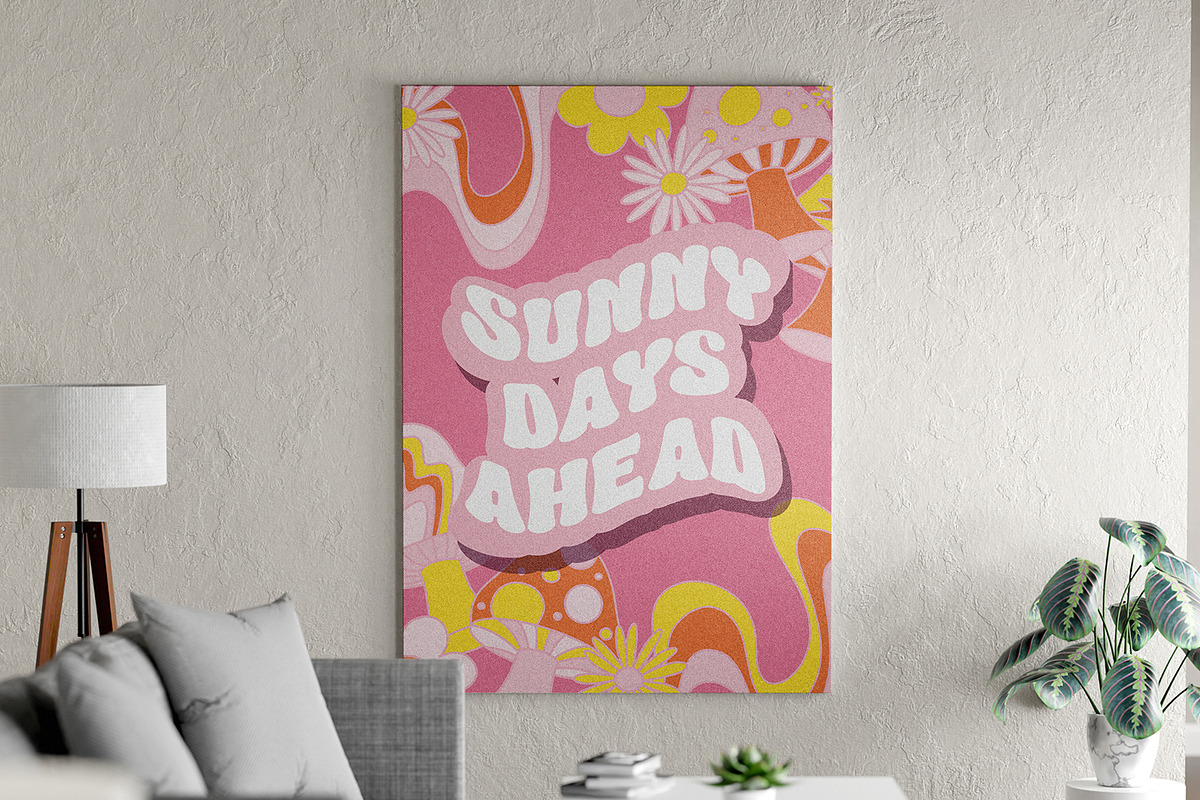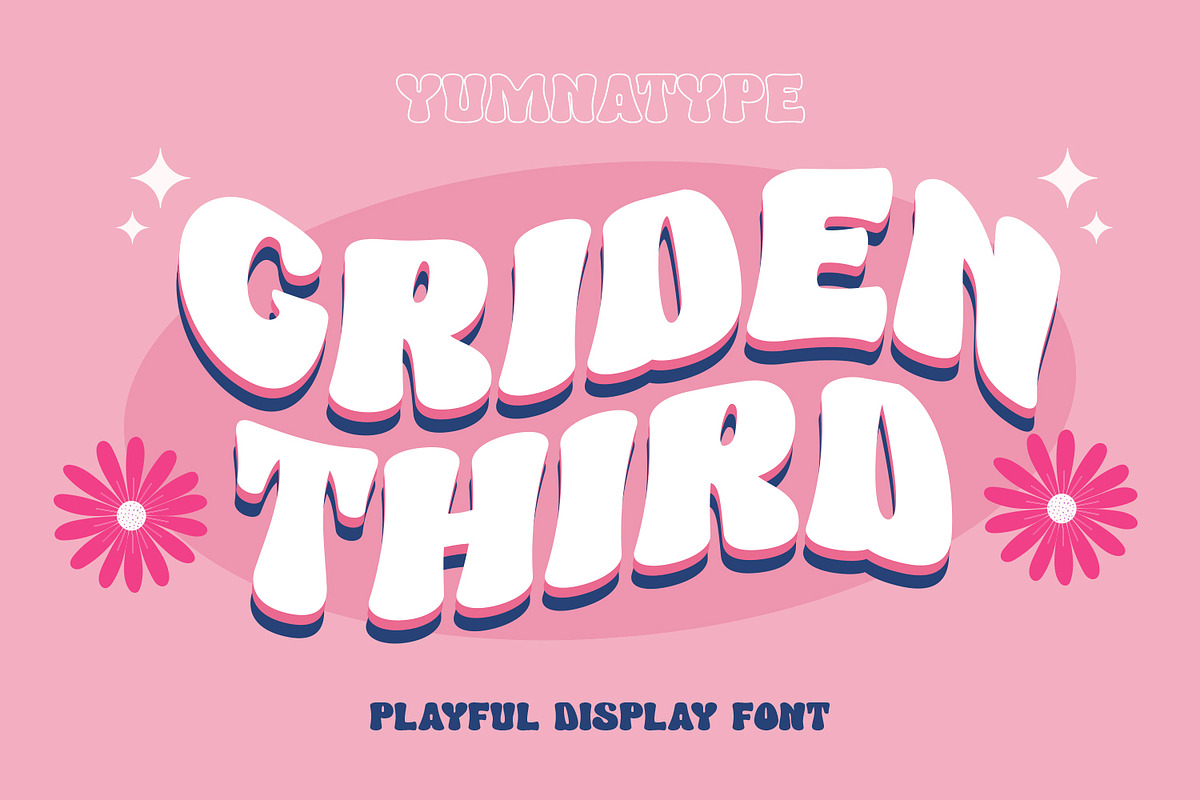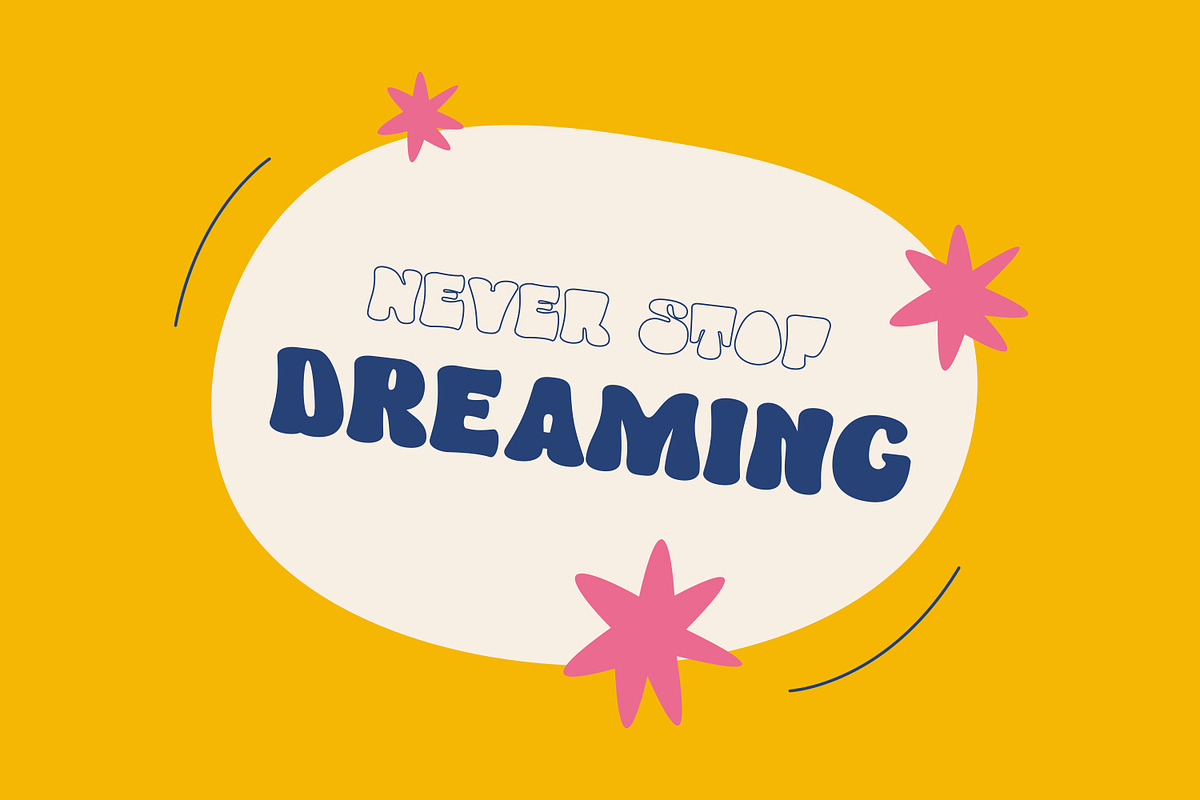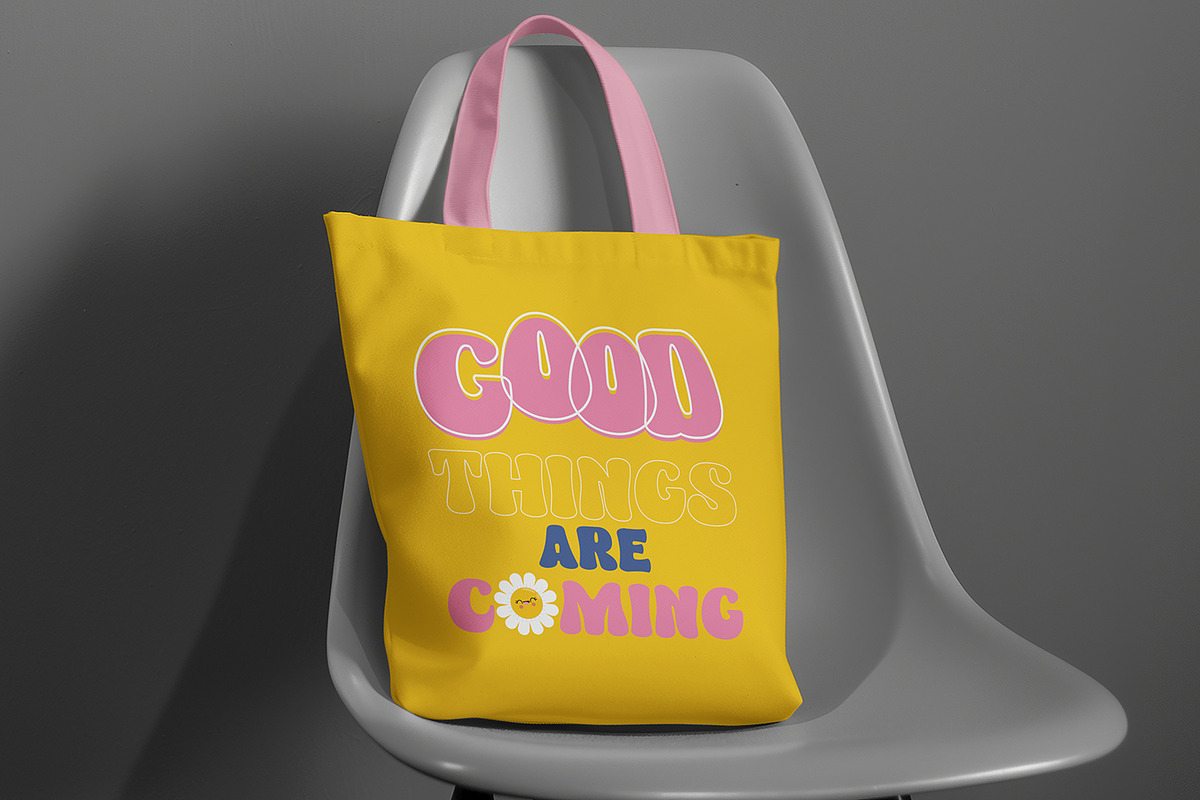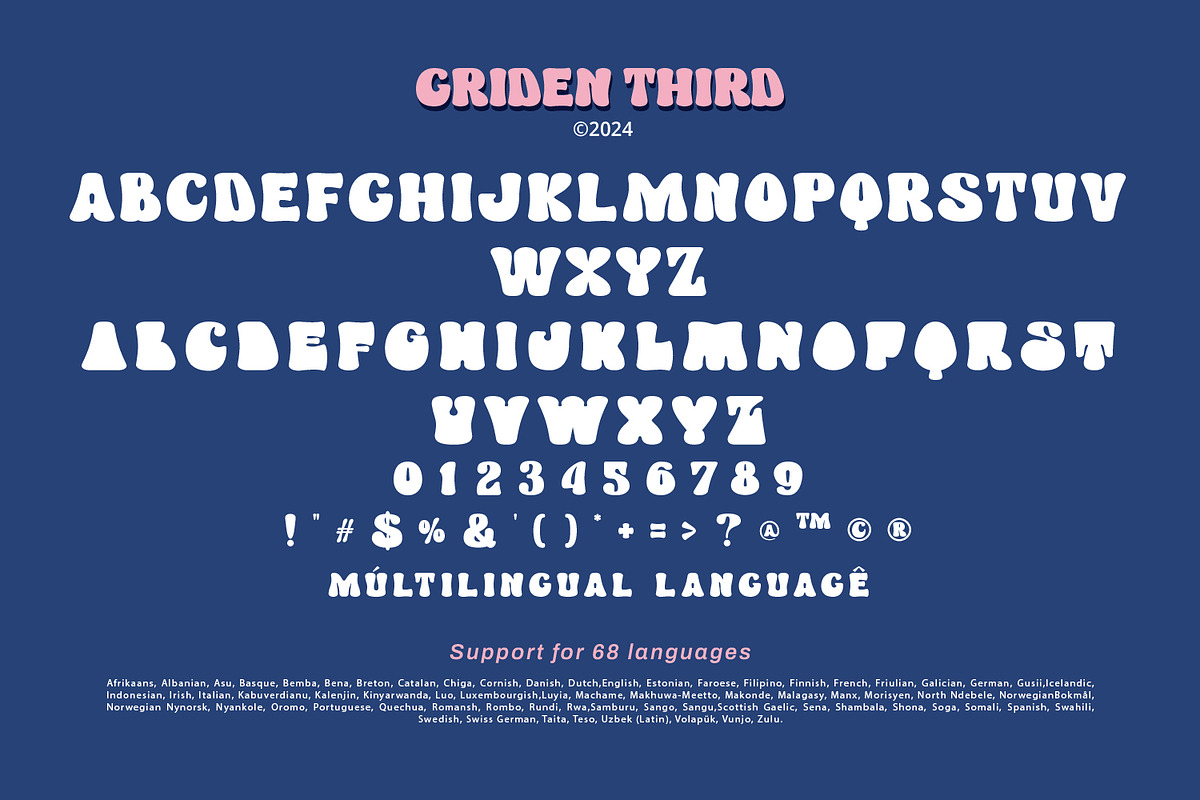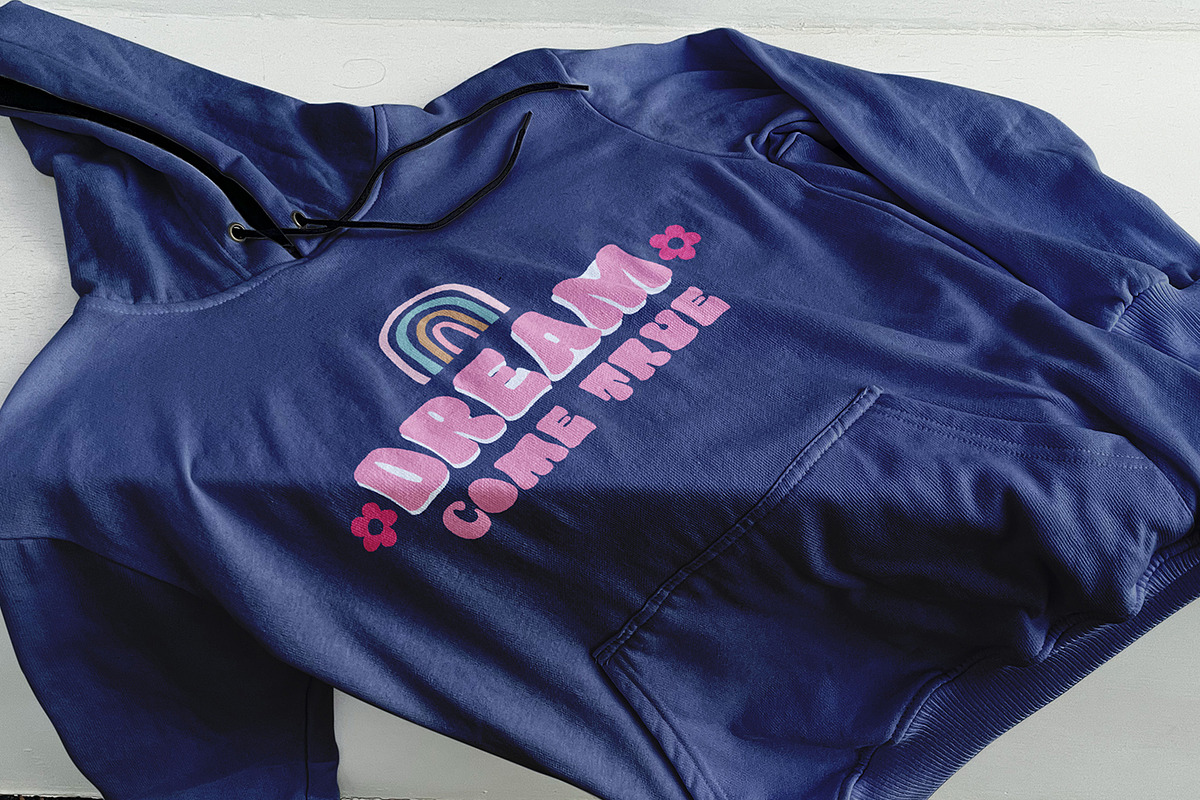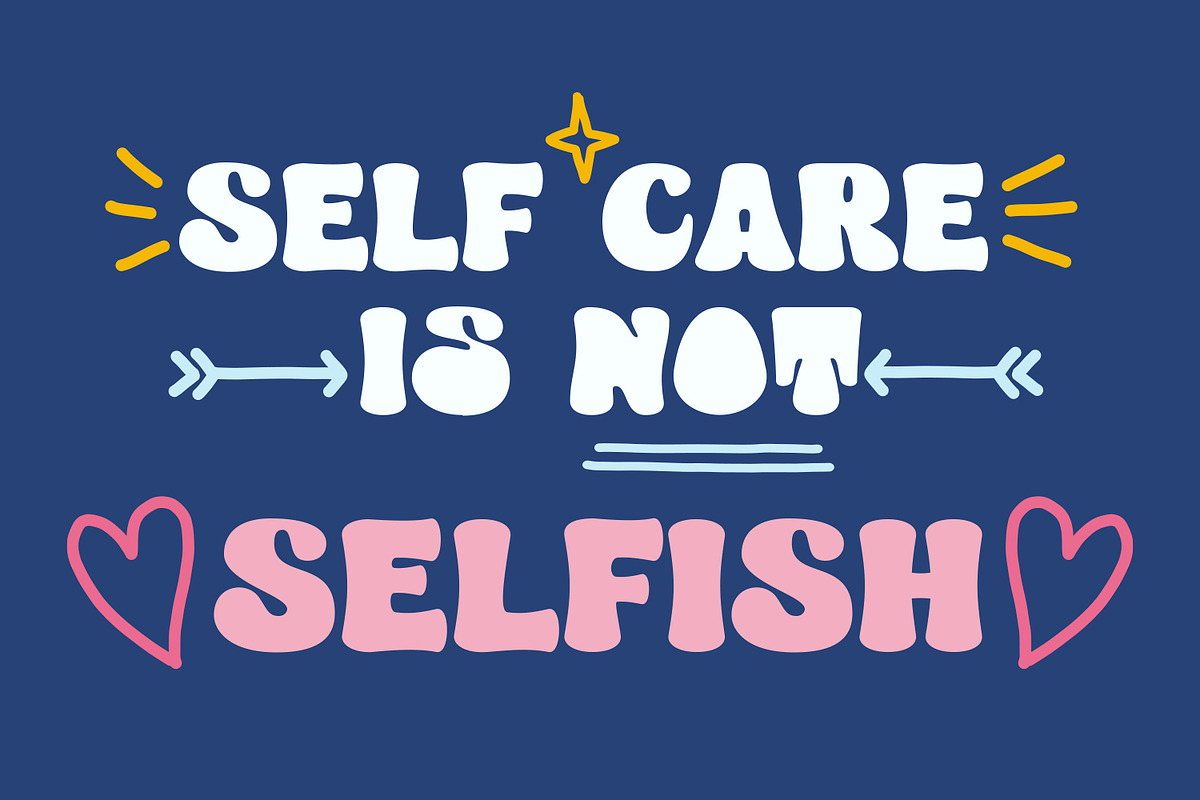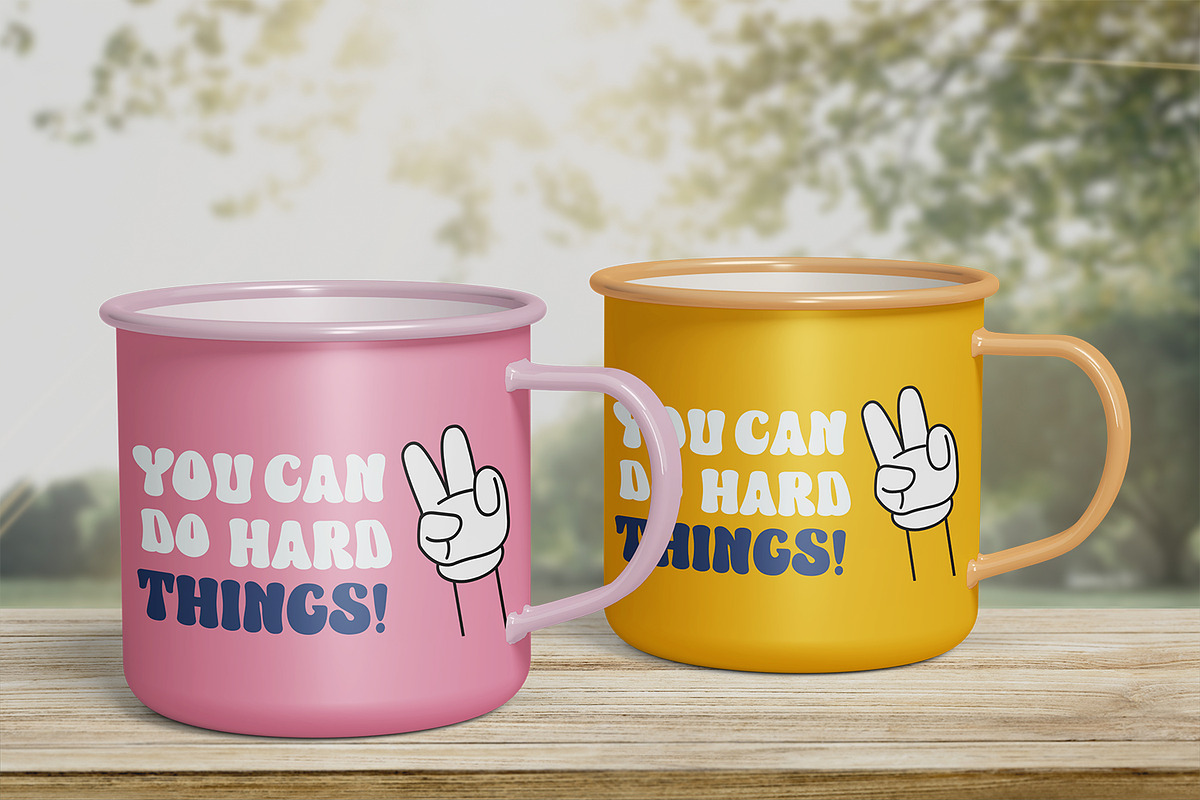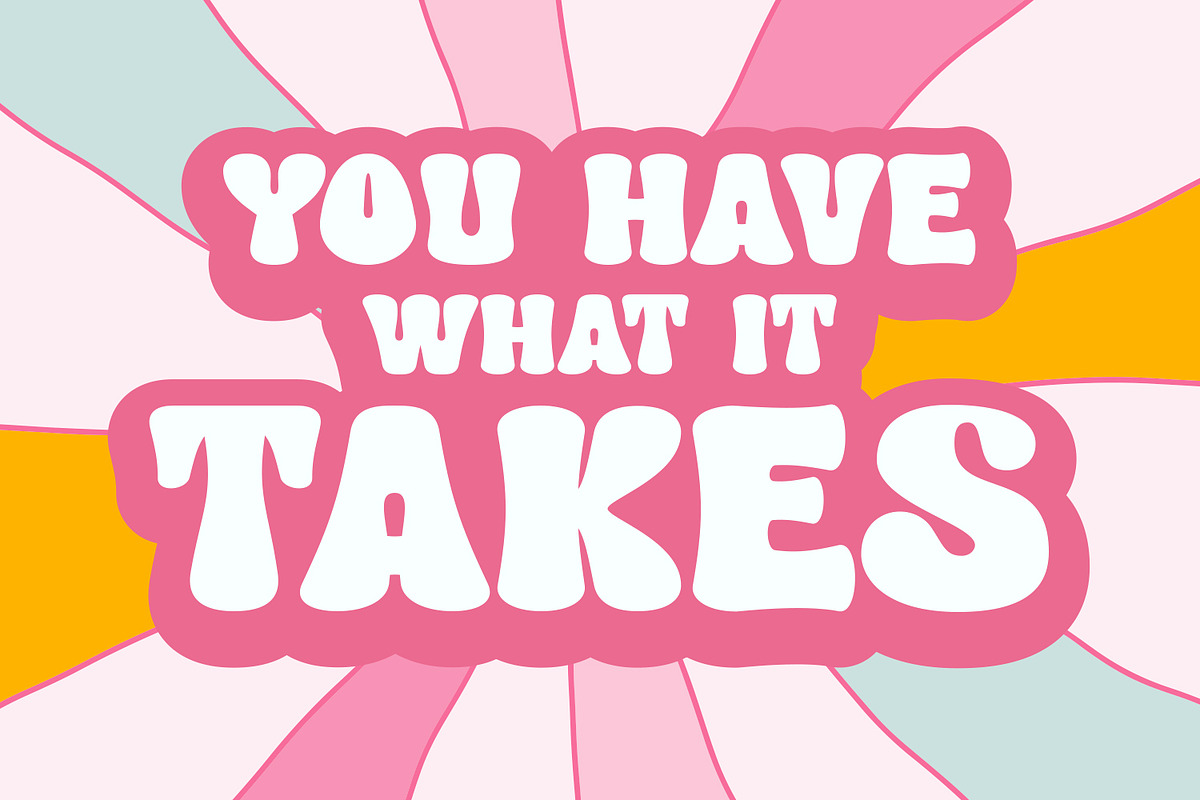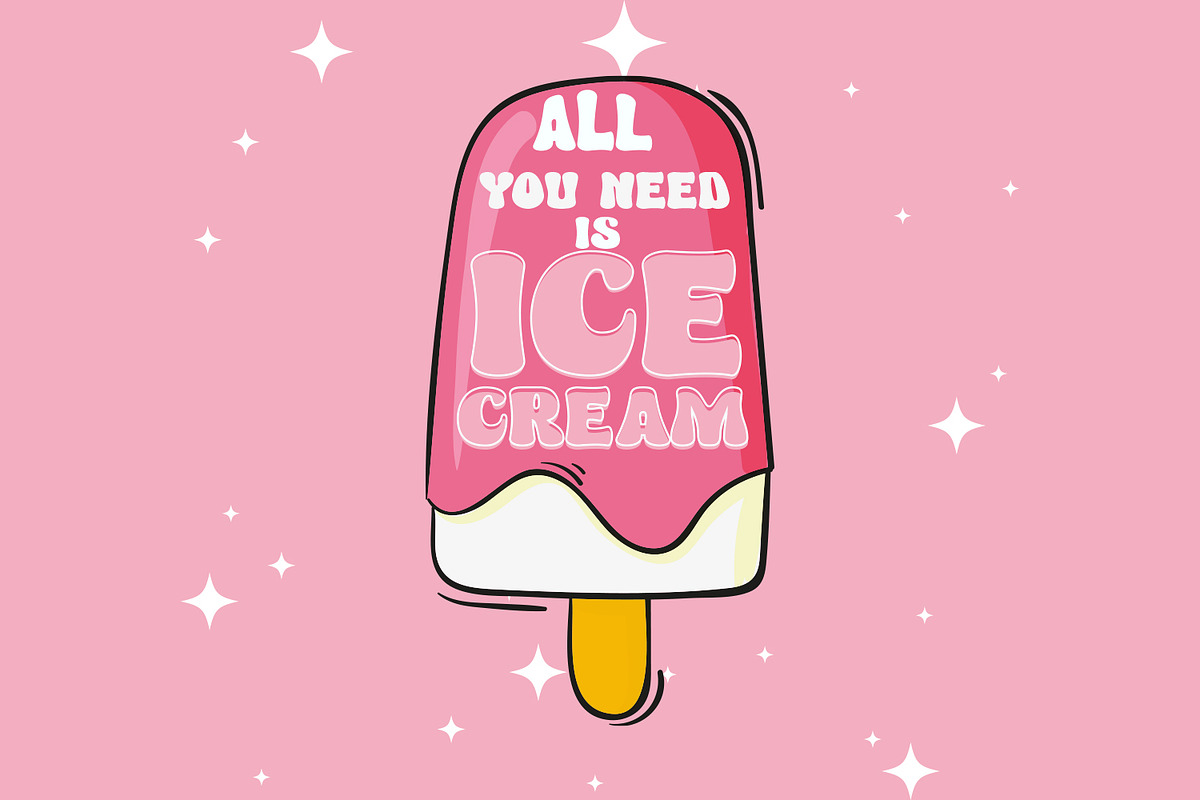
Griden Third
Griden Third is a striking display font designed to make a bold statement, Griden Third comes with a shadow version. The shadow version of Griden Third introduces an additional layer of depth and visual interest. The shadow effect enhances the three-dimensional appearance of the letters, giving your designs a dynamic look.
The bold weight of Griden Third ensures that each letter stands out prominently. The quite low contrast between the strokes creates a uniform and cohesive look. The rounded shapes of the letters add a touch of softness and modernity to the bold weight, balancing strength with approachability. In addition, enjoy the features here.
Griden Third fits in headlines, logos, posters, flyers, branding materials, print media, editorial layouts, and many more designs. Find out more ways to use this font by taking a look at the font preview.